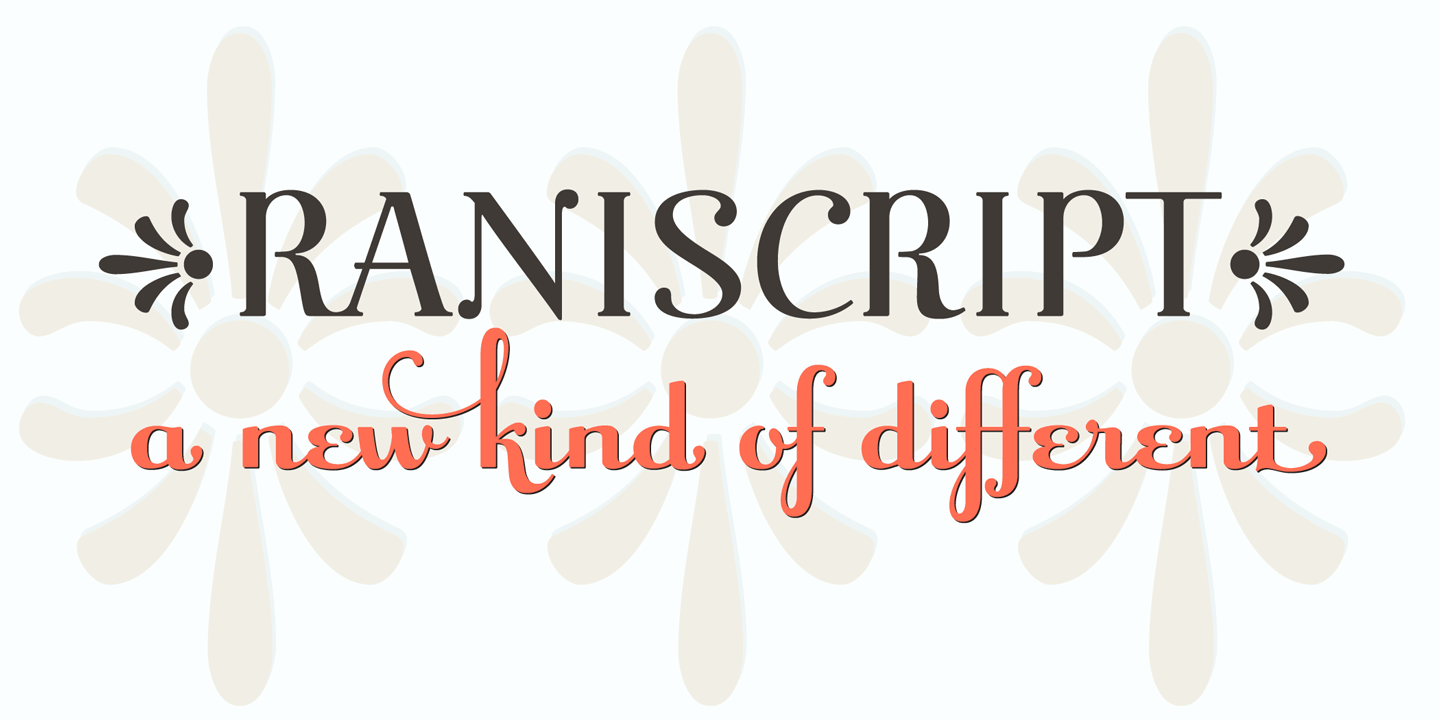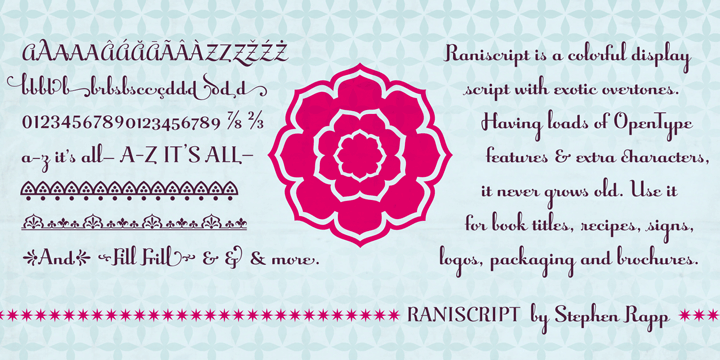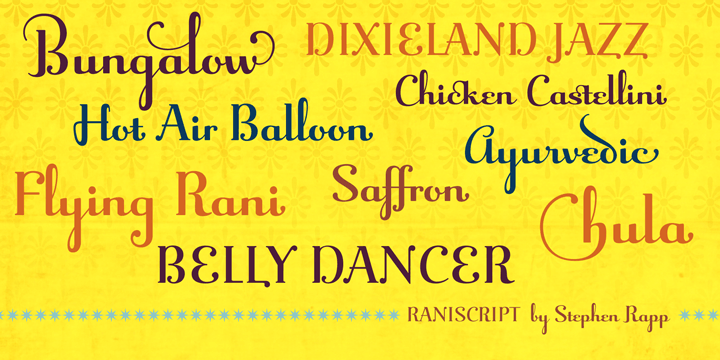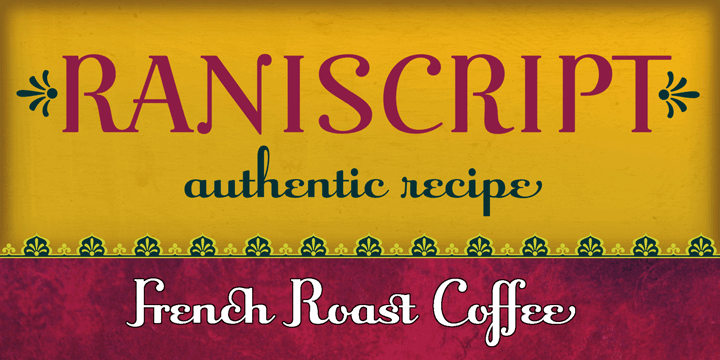
From Stephen Rapp
You'll find Raniscript ideal for packaging, book titles, brochures or anything requiring a robust display treatment. It comes fully loaded for OpenType savvy applications. Three full sets of caps are included. By clicking the Titling button in Illustrator you can type using an all caps set that includes ligatures, case sensitive punctuation and language coverage. Other features include oldstyle figures, Central European language support, fractions, contextual letter substitution, swash characters, and ornaments.